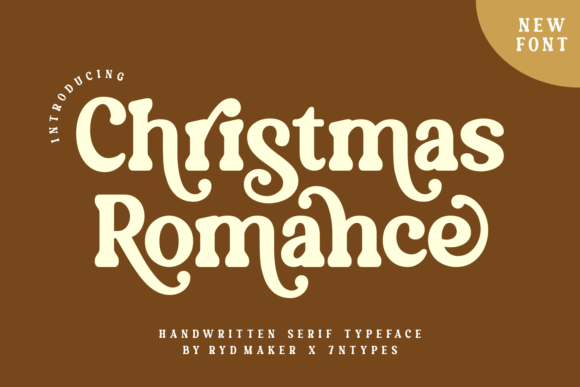
Introducing Christmas Romance Font, the ultimate font for all your Christmas card needs! Created by the talented Rydmaker from 7NTypes, this charming handwritten serif font is here to infuse your holiday creations with an abundance of warmth and nostalgia. Get ready to embrace the spirit of the season and add a magical touch to your Christmas-themed projects!
With its elegant yet playful style, Christmas Romance Font captures the essence of Christmas like no other. Its carefully crafted curves and delicate lines bring forth a sense of joy and cheer, making it the perfect choice for those looking to spread holiday cheer through their designs. Whether you're creating Christmas cards, gift tags, invitations, or even festive social media graphics, this font will be your ultimate companion.
Imagine the delight on your loved ones' faces as they receive a beautifully designed Christmas card featuring the enchanting Christmas Romance Font. It's not just a font; it's a gateway to unforgettable moments and cherished memories. Let your creativity flow as you personalize each letter and word, making every message unique and heartfelt. With this font, your Christmas cards will become keepsakes that are treasured for years to come.
But the magic doesn't stop there. Christmas Romance Font is not limited to just Christmas cards. Its versatility allows you to explore a wide range of creative possibilities. From holiday-themed banners and posters to seasonal advertisements and website graphics, this font will bring your ideas to life with its captivating charm.
Are you worried about finding the perfect font that matches your preferred style? Look no further! Christmas Romance Font offers a variety of letterforms and ligatures that will effortlessly adapt to your creative vision. Whether you want to achieve a traditional, vintage, or even a modern look, this font has got you covered. It's like having a magical toolbox at your disposal, empowering you to create stunning designs that leave a lasting impression.